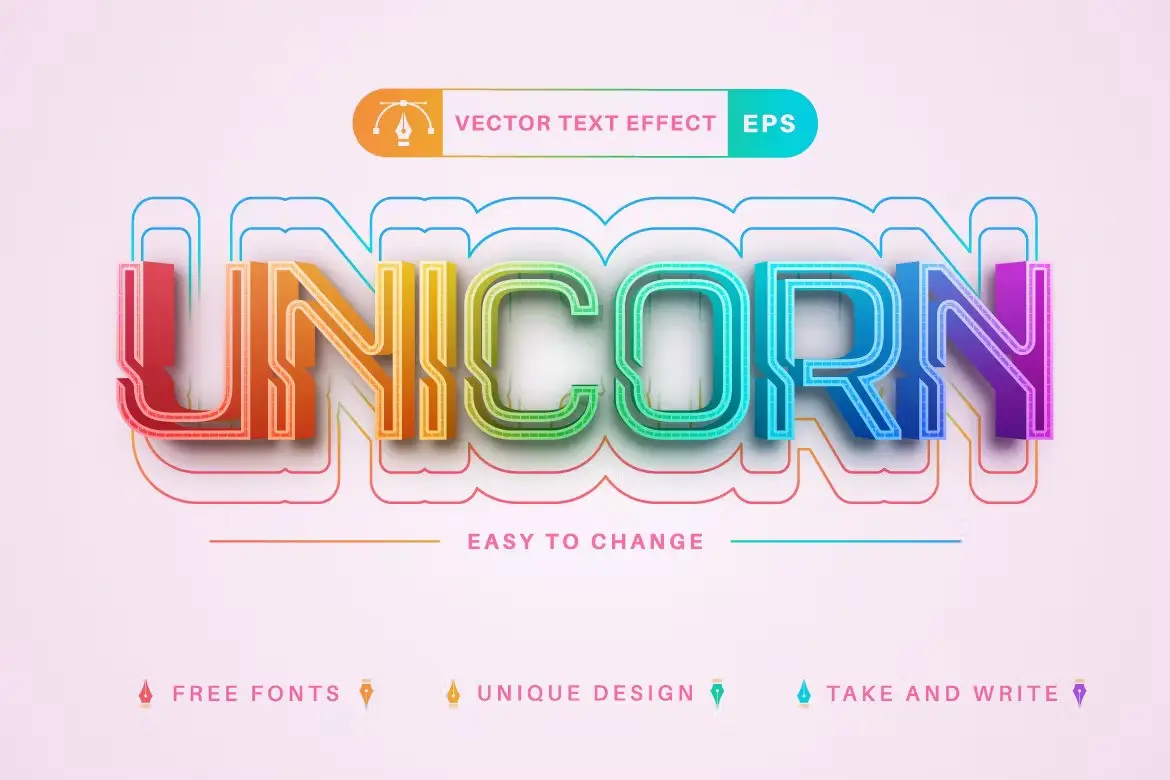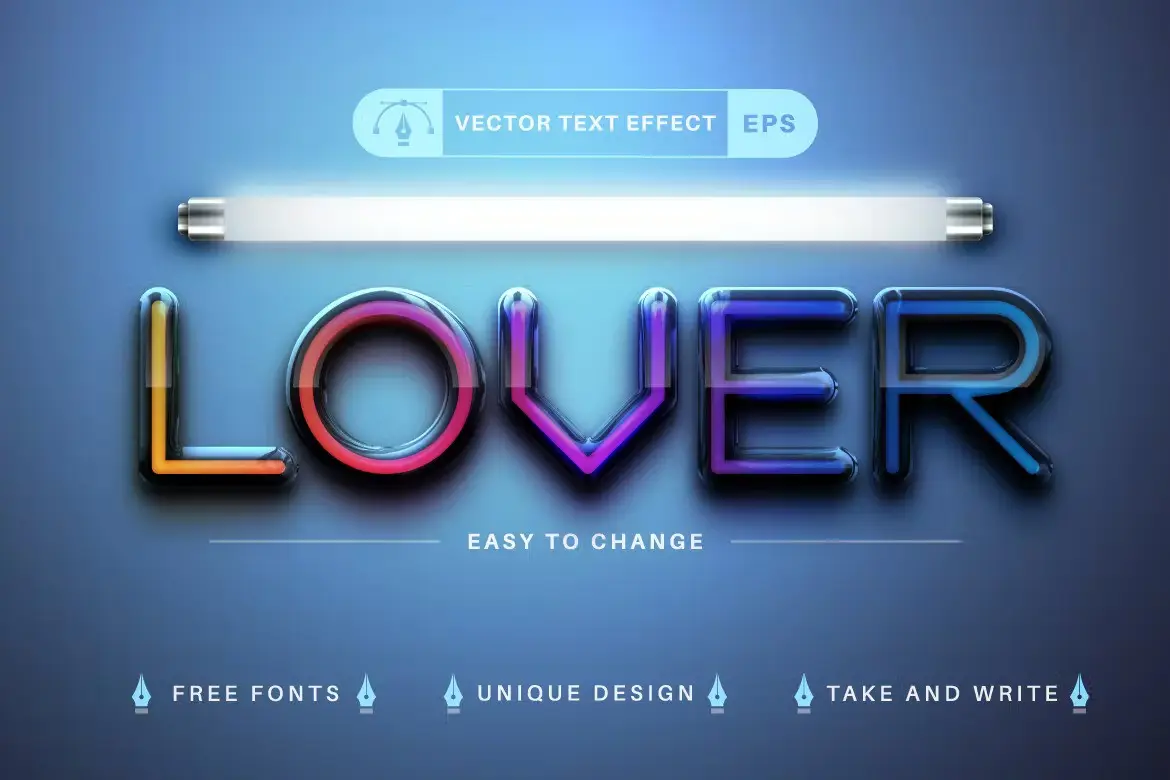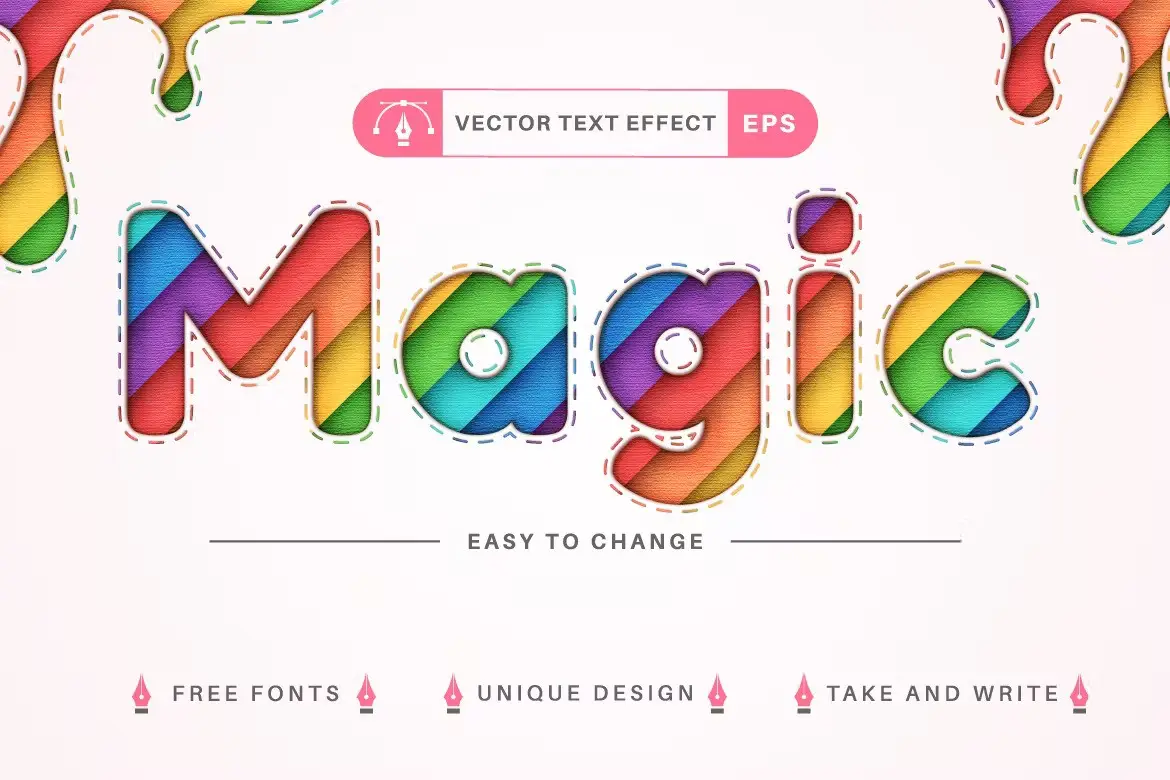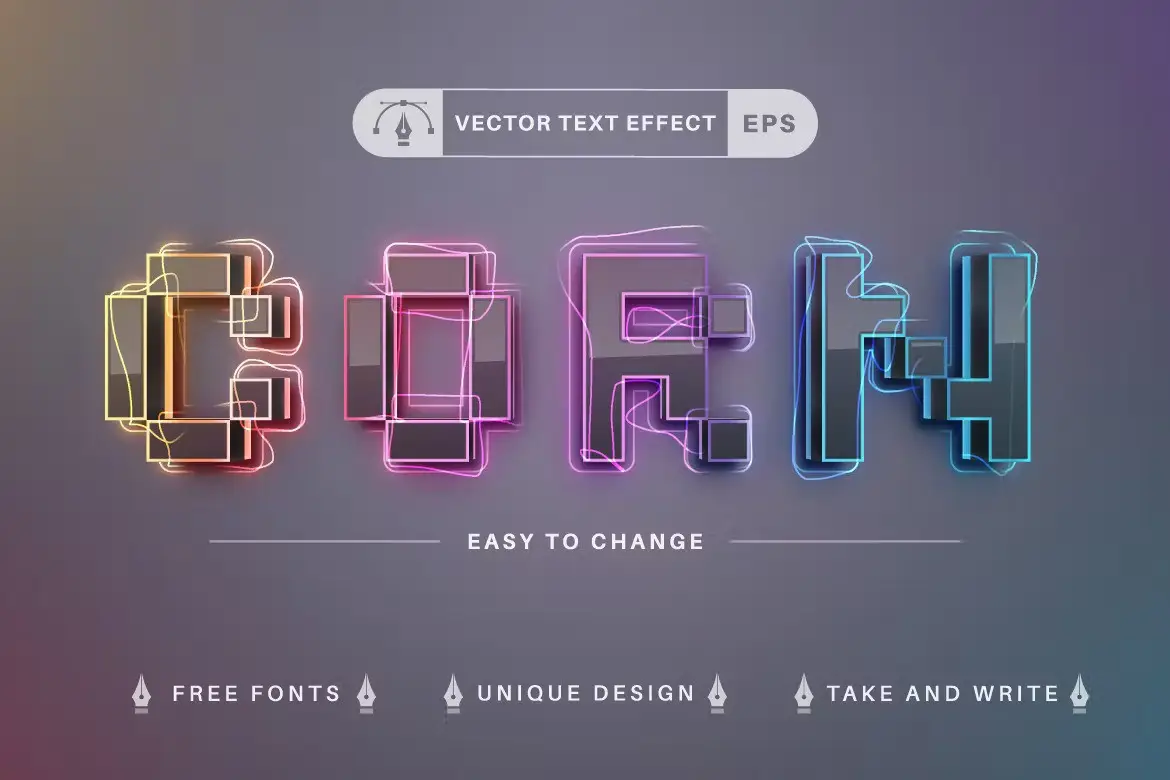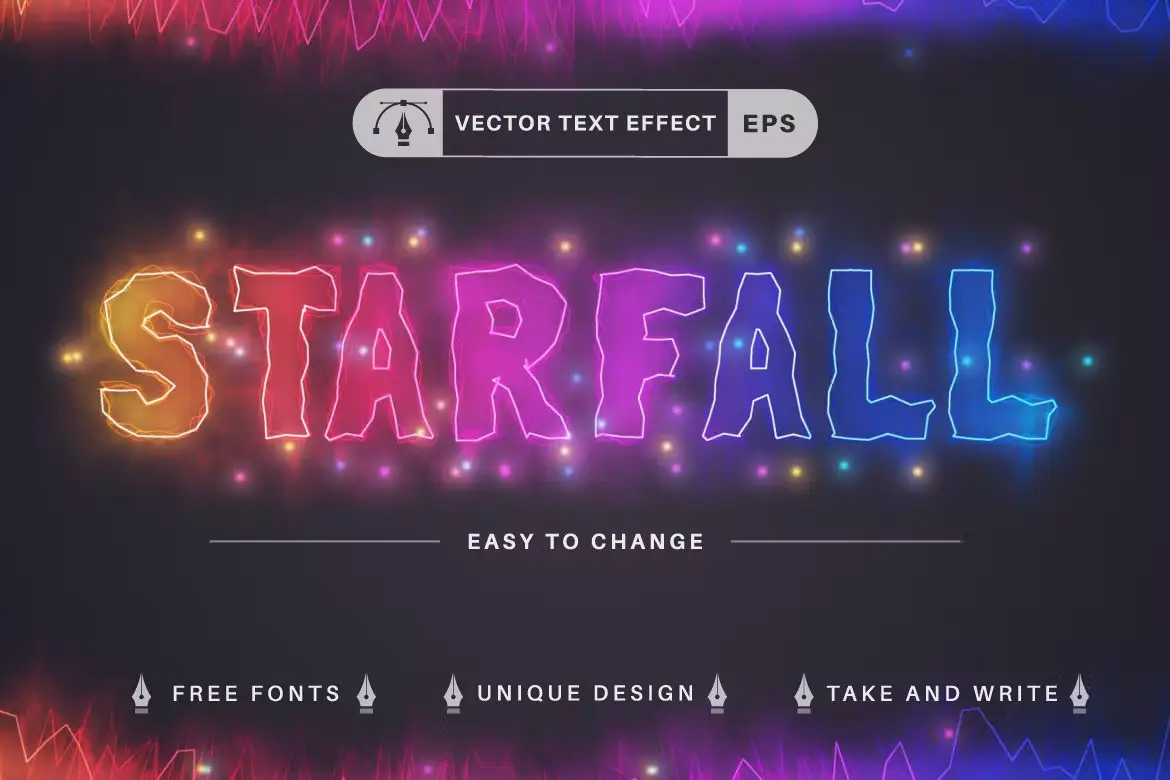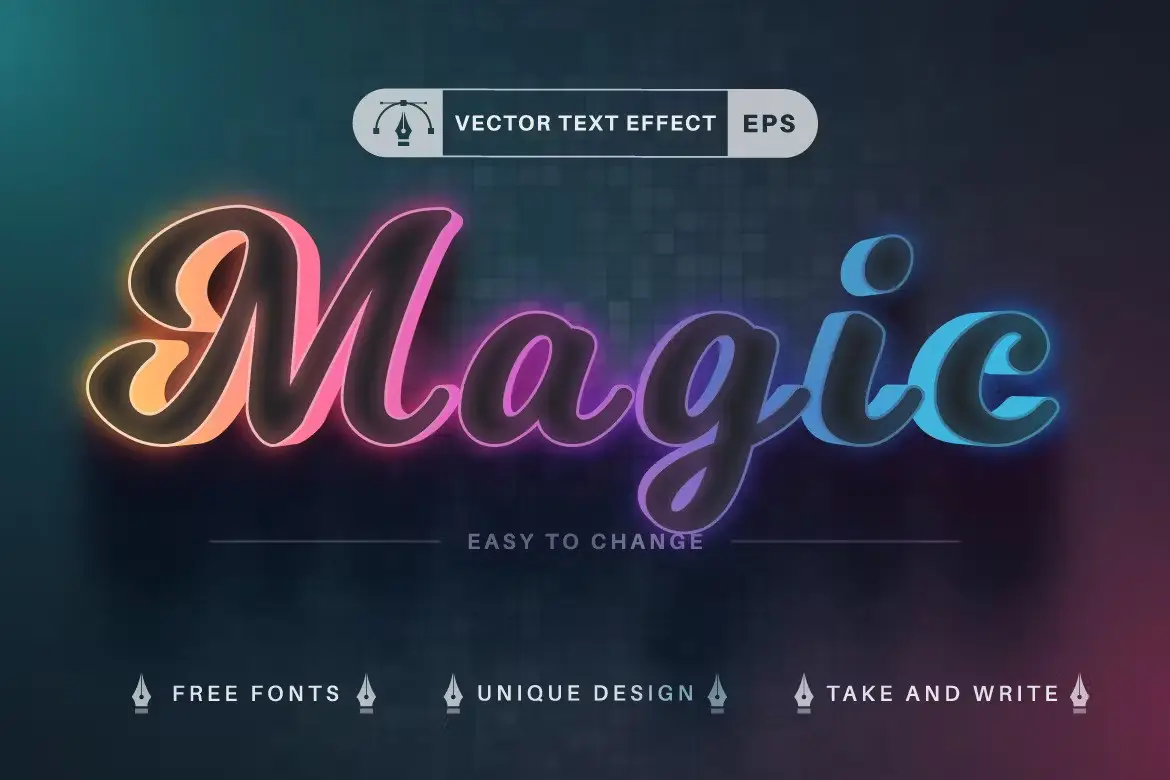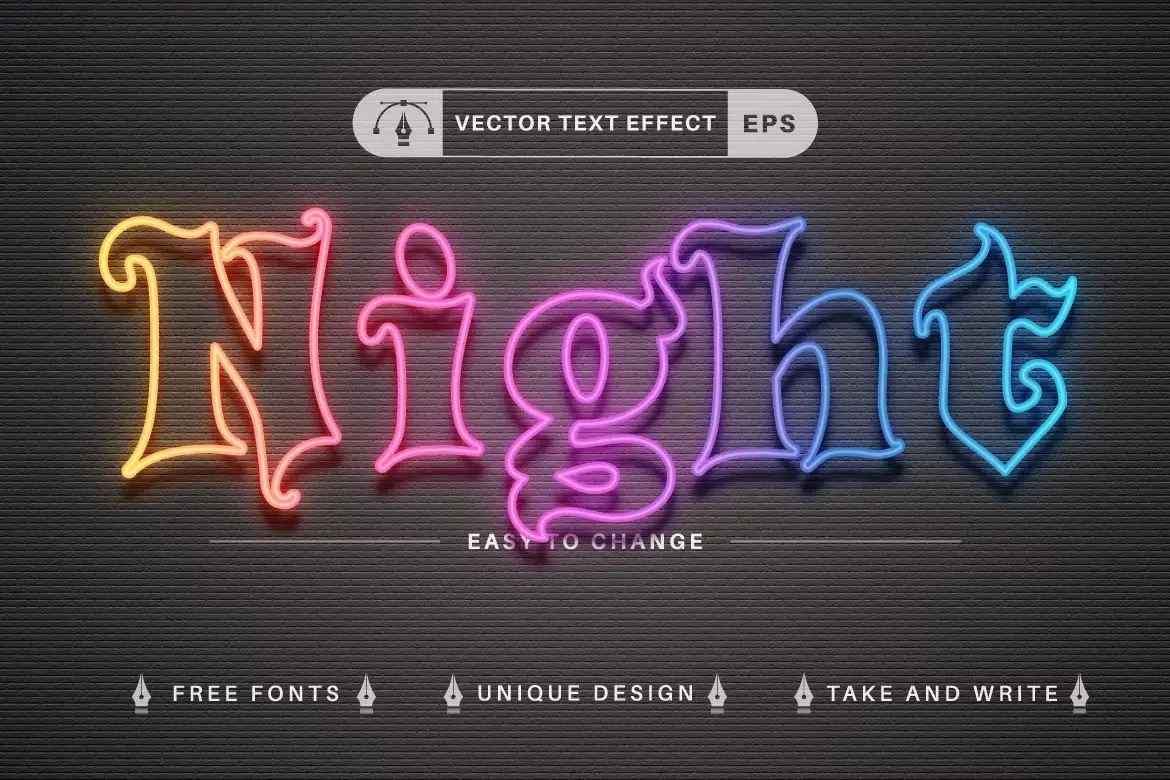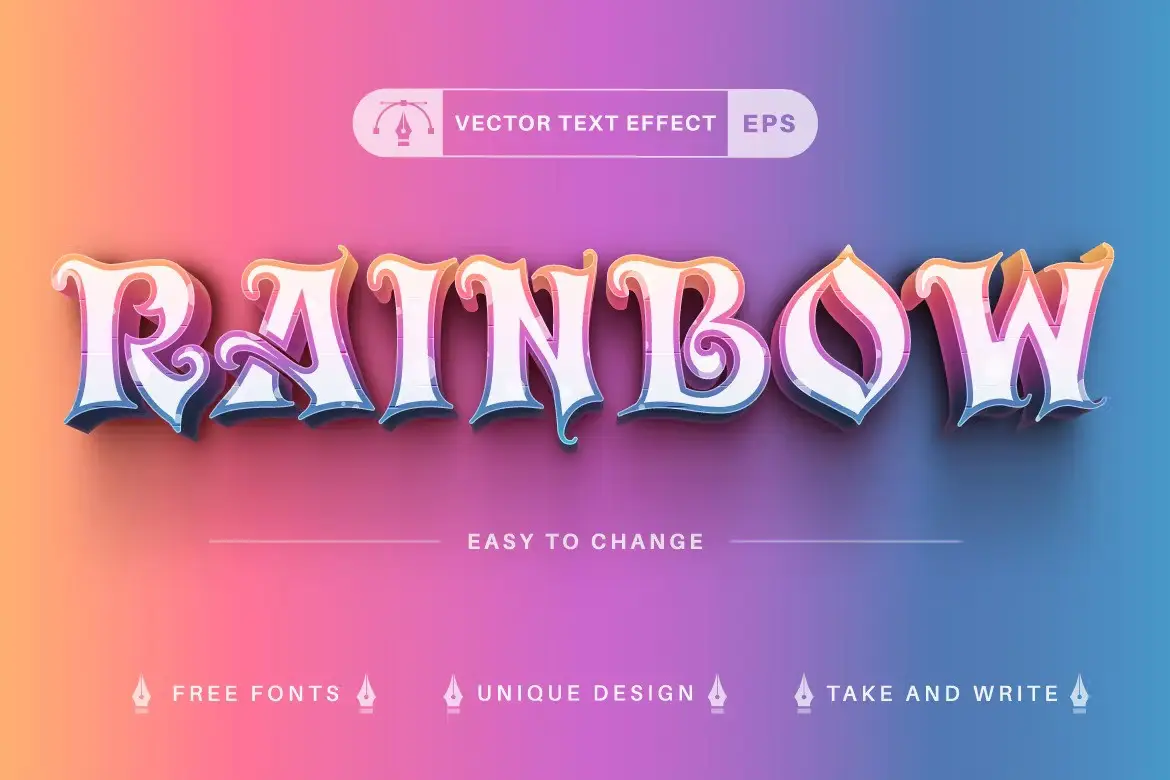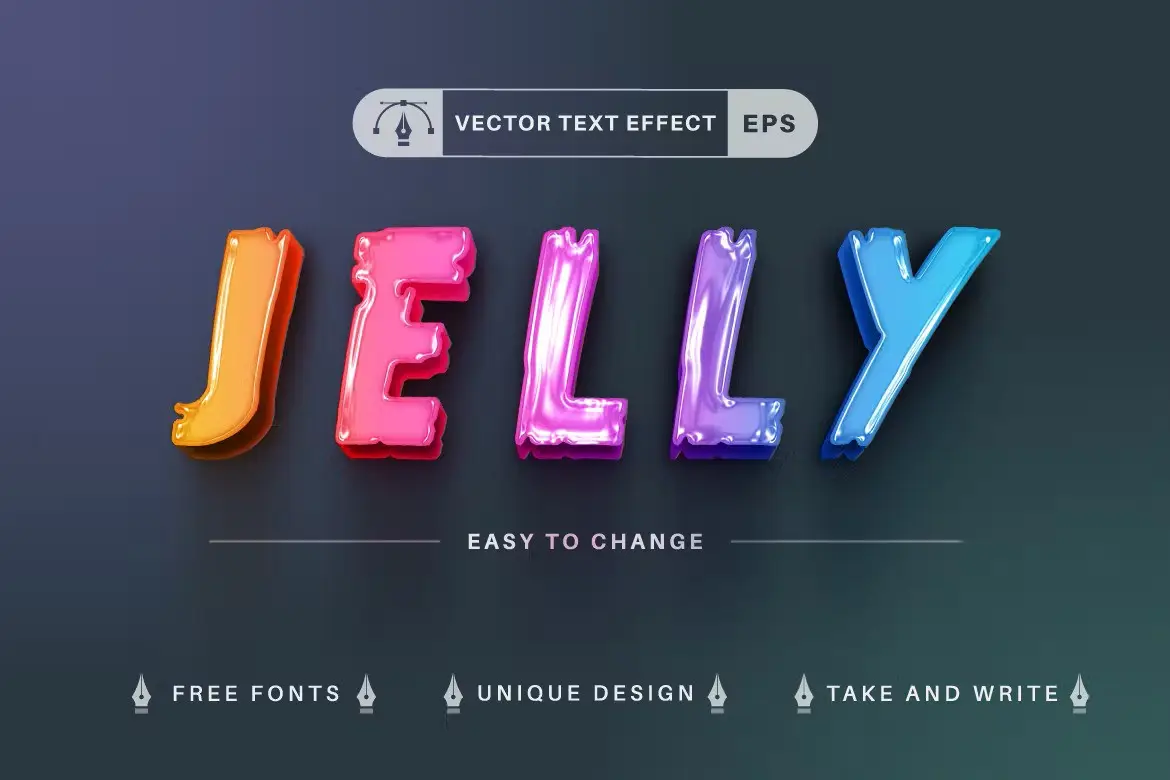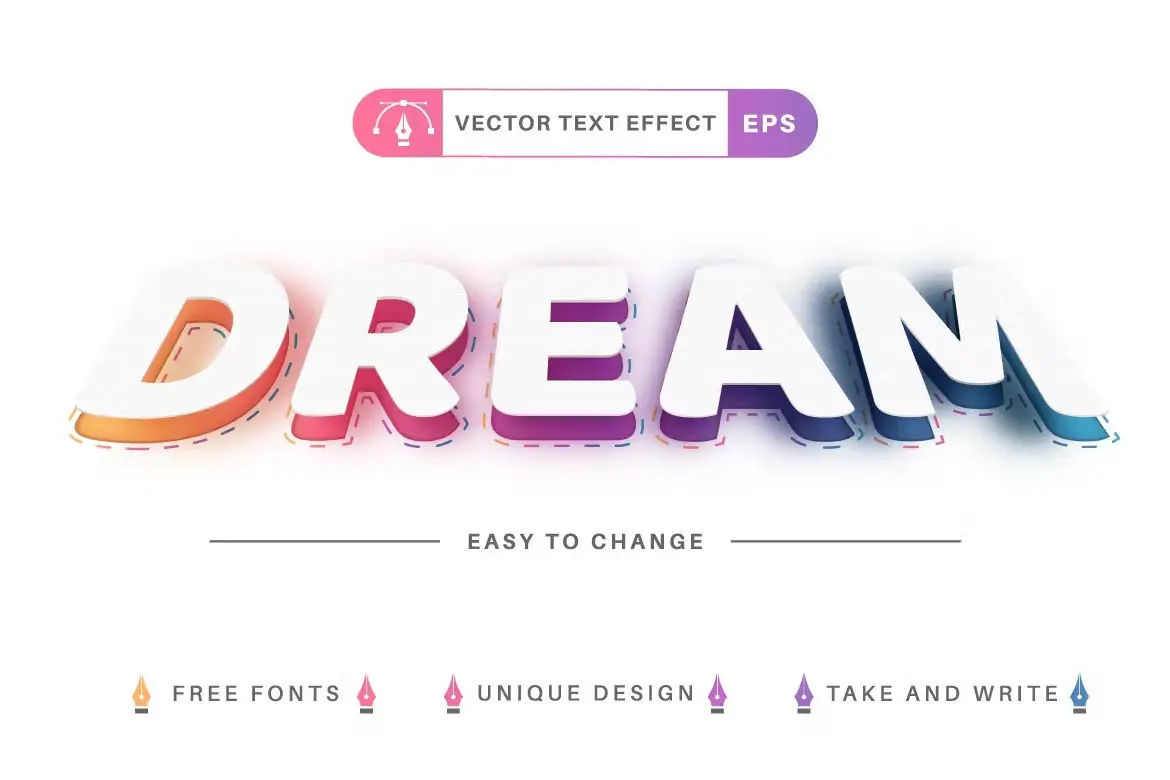
Set 10 Rainbow Editable Text Effects for Stunning Font Styles
Unleash your creativity with our Set 10 Rainbow Editable Text Effects. Perfect for any project, these unique text effects allow you to express yourself in vibrant, colorful ways. Whether you’re designing for Halloween or any other imaginative theme, these effects will add a magical touch to your work!
This collection features ten beautifully crafted vector text effects in rainbow styles. Each effect is designed to be easily editable, giving you the freedom to customize your text without any limitations on size. The vector format ensures that you can scale your designs to any size without losing quality, making them ideal for both digital and print projects.
- ✅ 10 Unique Text Effects → Versatile styles for diverse creative projects
This set stands out for its vibrant colors and flexibility. Trusted by designers and creatives worldwide, these text effects are perfect for adding a unique flair to your projects. Whether you’re working on invitations, social media graphics, or branding materials, these effects will help your designs shine.